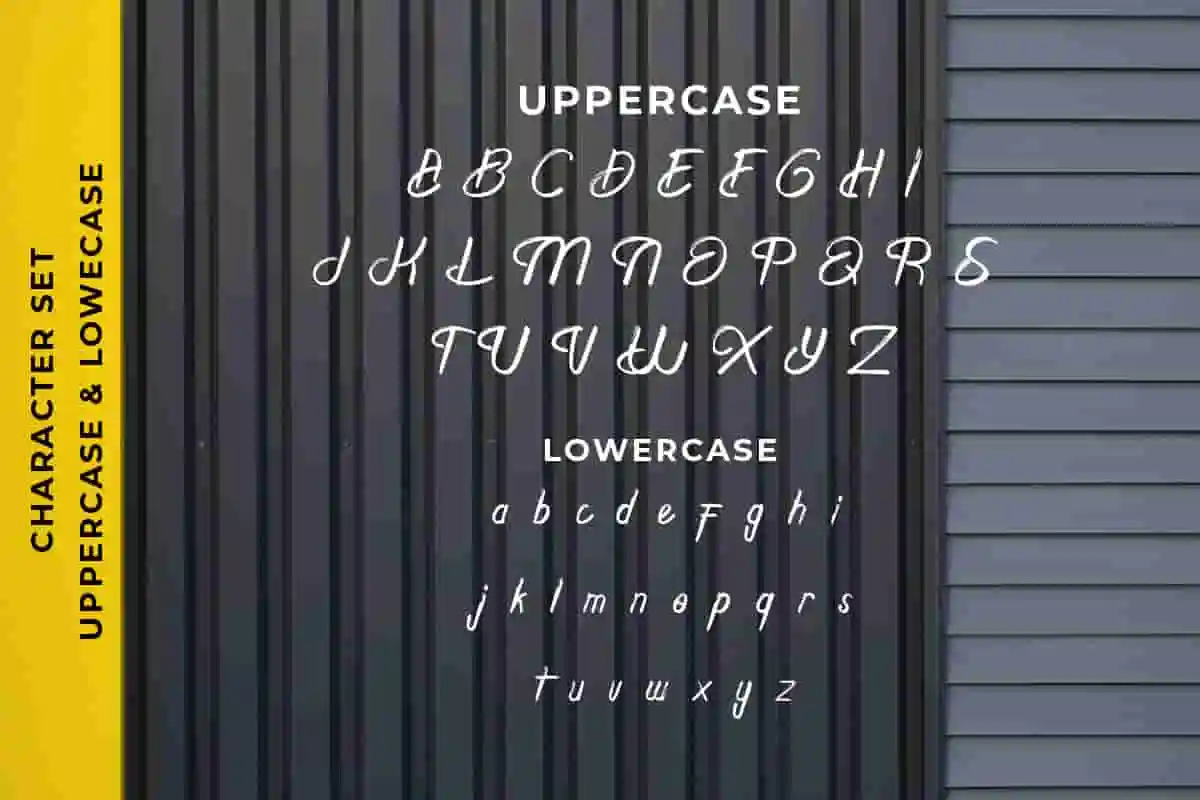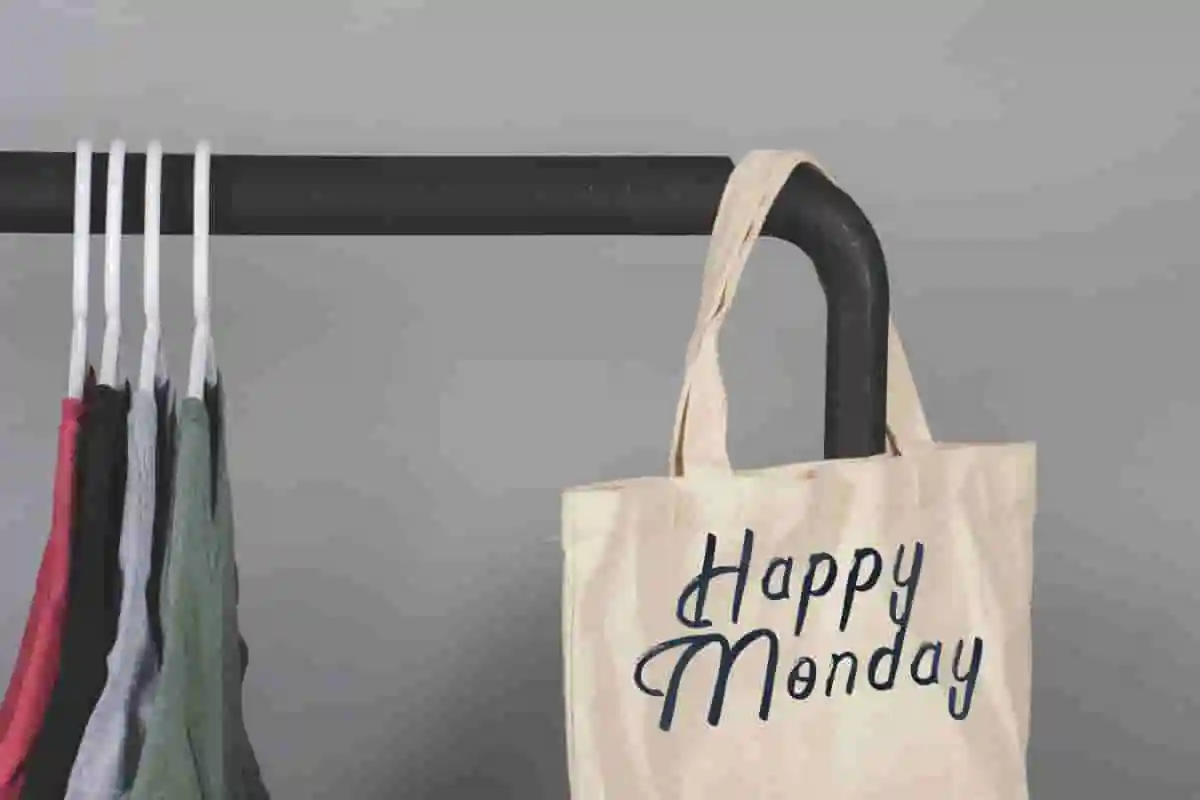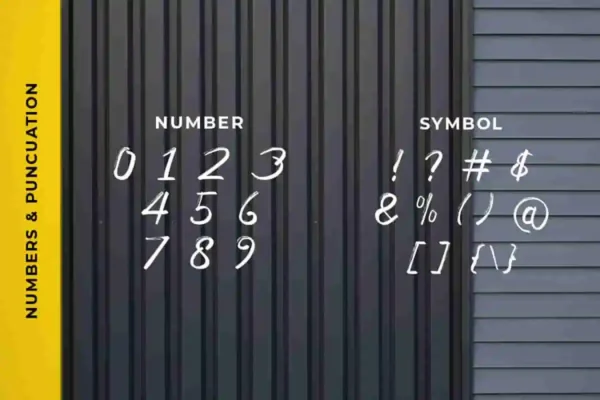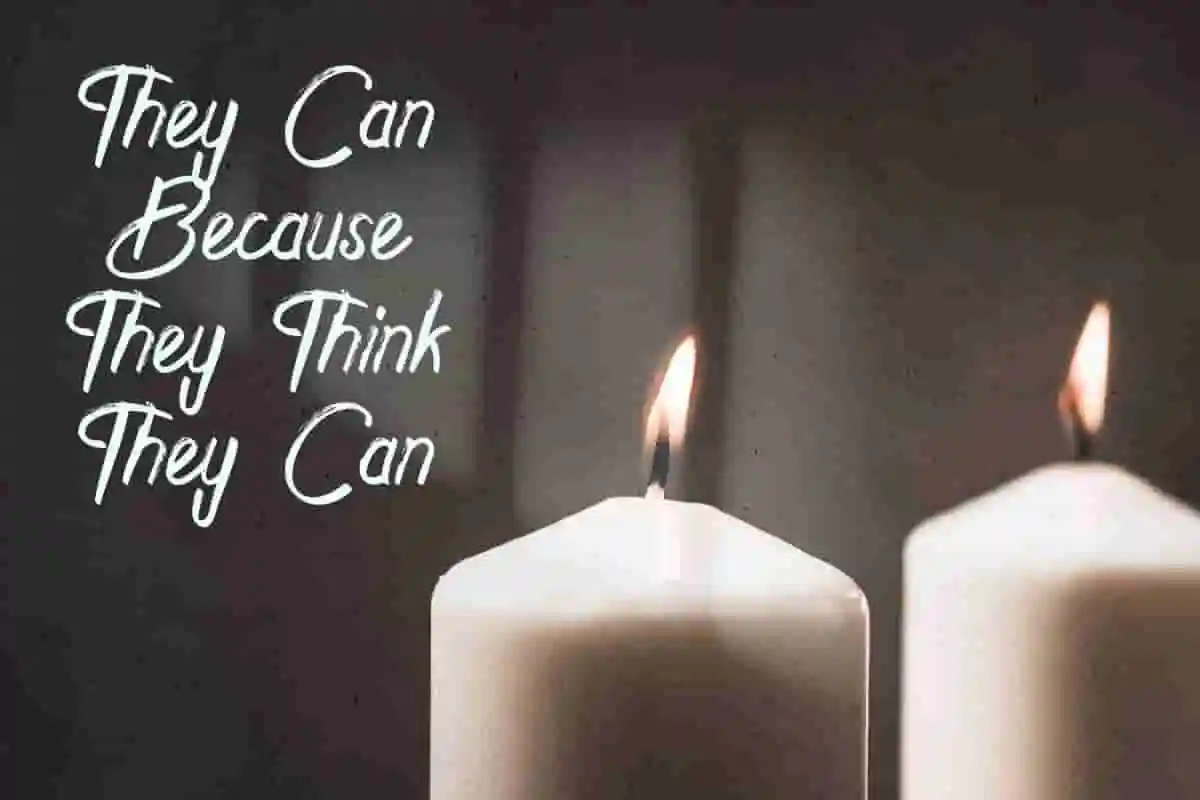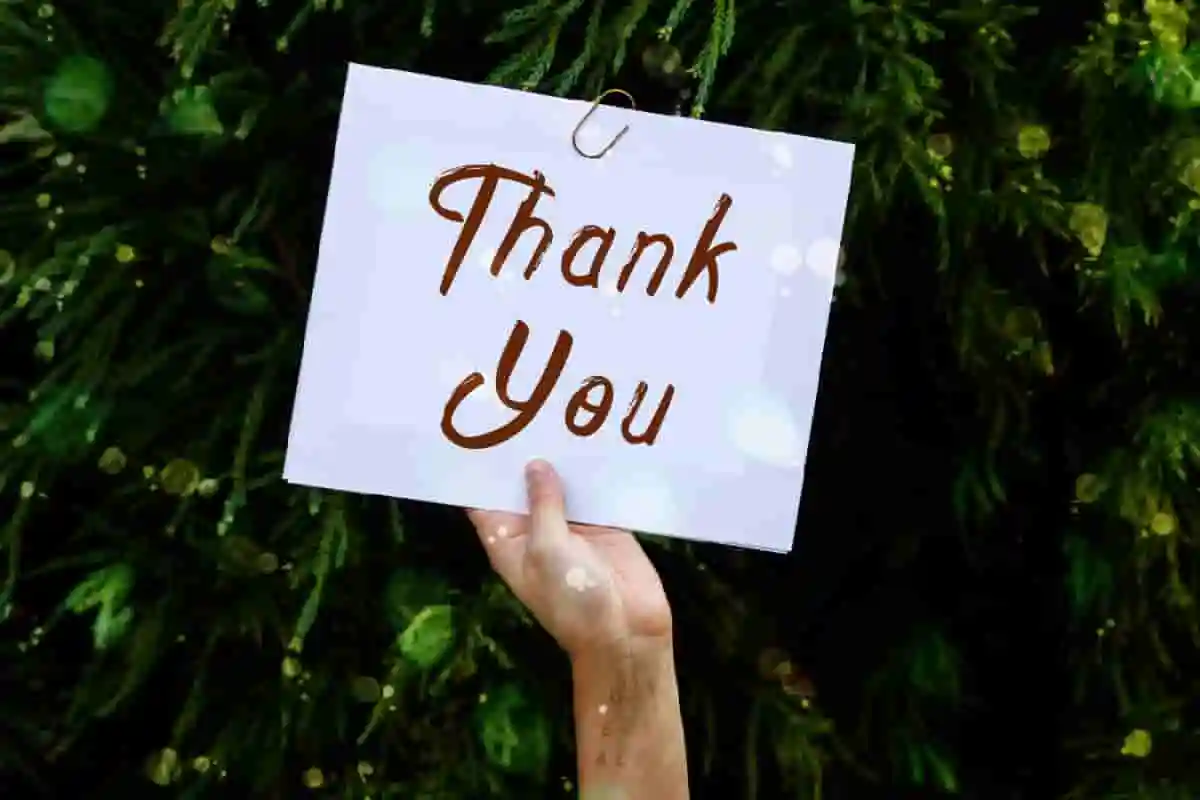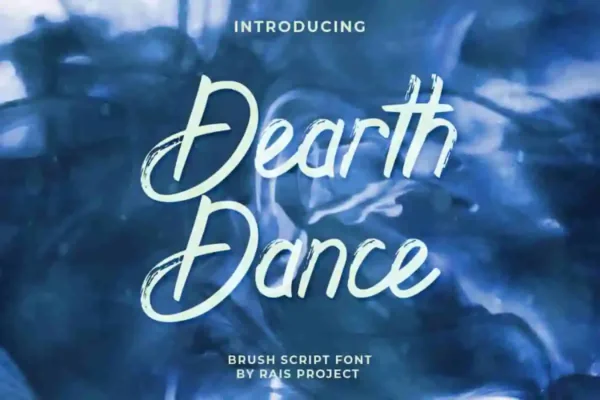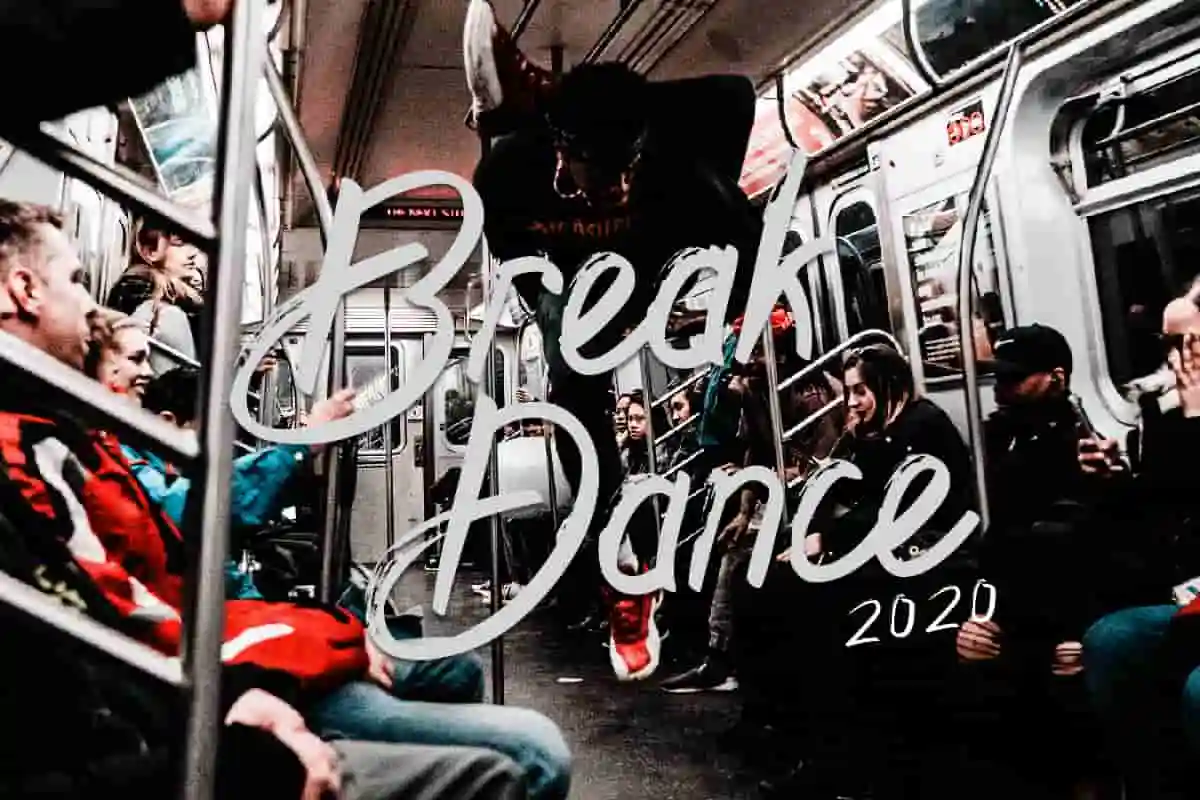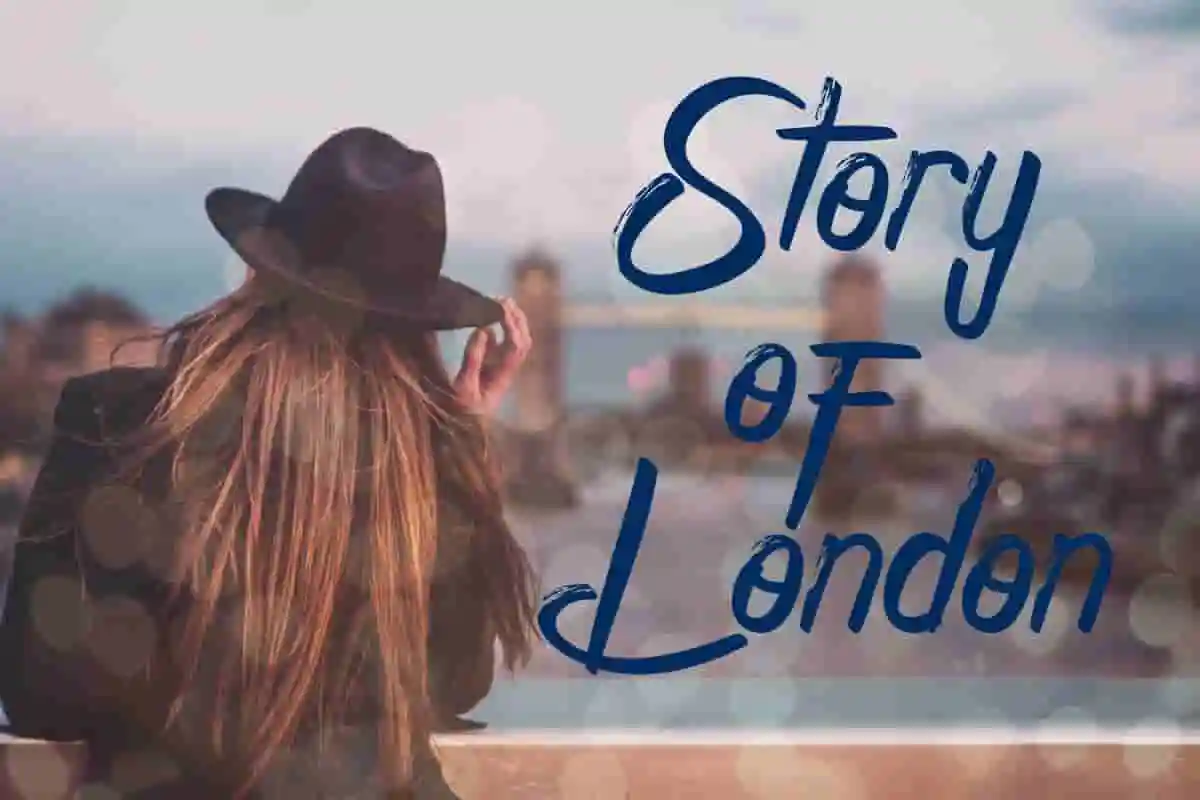
Dearth Dance Font
Dearth Dance Font is a grunge brush font, designed by Rais Project. It is a Textured brush display font with exclusive style that is great for games, Movie, motor club, Sport, Video, ec
Dearth Dance Font is our vintage font on the market. It is a textured classic brush font with exclusive style. You can see the demo font below. You can also input any word you want so you can see what it will look like :
Dearth Dance Font is remotely made in Bandung and Garut, Indonesia. The font was handcrafted for any your special projects including : headlines, promotion, events, branding, advertising, magazine, signage, invitation, stationery, social media posts, label, or and any projects that need unique strong style. The theme/industries of this font is Vintage, Horror, Movie, Game, Magazine, Music, Video, Sports, Racing etc
Dearth Dance Font includes full set of Great uppercase letters, numerals, a large range of punctuation and ligatures. With a unique textured effect.